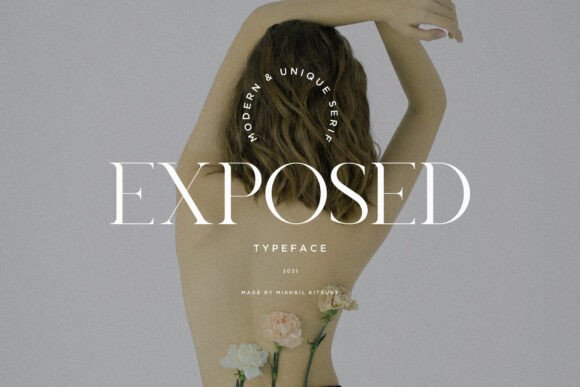
Discover the Sleek Elegance of Exposed: A Modern Serif Font
In the world of typography, fonts play a crucial role in conveying messages, expressing emotions, and creating lasting impressions. Among the numerous fonts available, Exposed stands out as a distinctively modern serif font that effortlessly marries tradition with innovation. Its sleek elegance and versatility make it an ideal choice for various creative applications, from invitations and website headers to logos and branding projects.
What is Exposed Font?
Exposed is a modern serif font designed to bring a touch of sophistication and elegance to any design project. Its subtle shaping and refined lines make it perfect for creating visually appealing typography and branding materials. The font’s unique design allows it to seamlessly integrate with a variety of sans serif fonts, paving the way for innumerable stylistic possibilities.
Applications of Exposed Font
The versatility of Exposed makes it suitable for a wide range of creative applications. Here are a few examples:
- Invitations: Turn simple invitations into captivating works of art with Exposed. Its elegant lines and refined shaping make it perfect for creating beautiful and sophisticated invitations for weddings, parties, and other special events.
- Website Headers: Add a touch of refinement and sophistication to your website headers with Exposed. Its modern design and subtle shaping make it ideal for creating visually appealing and professional-looking website headers.
- Magazine Headers: Exposed is also suitable for magazine headers, where its elegant lines and refined shaping can add a touch of sophistication and elegance to your publication.
- Logos: Exposed can bring logos to life with its unique design and subtle shaping. Its versatility makes it suitable for a wide range of logo designs, from simple and minimalist to complex and intricate.
Typography and Branding with Exposed
Exposed is not just a font; it’s a tool for creating visually appealing typography and branding materials. Its subtle shaping and refined lines make it perfect for creating beautiful and sophisticated typography, while its unique design allows it to seamlessly integrate with a variety of sans serif fonts.
When used in branding projects, Exposed can help create a lasting impression on your audience. Its elegant lines and refined shaping make it perfect for creating sophisticated and professional-looking branding materials, such as business cards, brochures, and letterheads.
Treat Your Audience to a Visual Experience with Exposed
In today’s digital age, creating a visual experience for your audience is crucial for standing out and making a lasting impression. With Exposed, you can treat your audience to a visually appealing and sophisticated typography and branding experience.
Whether you’re designing a website, creating a logo, or developing a branding campaign, Exposed can help you create a unique and visually appealing experience for your audience. Its elegant lines, refined shaping, and versatility make it the perfect choice for any design project.
In conclusion, Exposed is a distinctively modern serif font that effortlessly marries tradition with innovation. Its sleek elegance, versatility, and ability to seamlessly integrate with a variety of sans serif fonts make it an ideal choice for various creative applications.
Whether you’re a designer, a typographer, or a branding expert, Exposed can help you create visually appealing and sophisticated typography and branding materials that leave a lasting impression on your audience.